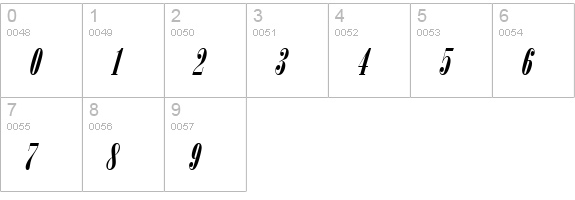
ArsisDReg Italic Font Details
ArsisDReg Italic is a distinctive, italic variant in the ArsisDReg typeface family \xE2\x80\x94 well suited to design and typography projects.
ArsisDReg Italic is a sleek and modern font with a touch of elegance. Its italicized design adds a stylish flair to any project, making it perfect for branding, advertising, and creative endeavors. The font features clean lines and a contemporary feel that will captivate your audience. What's even better is that ArsisDReg Italic is completely free to use! You can download this stunning font at FontsMarket.com without any cost. Whether you're a designer, entrepreneur, or hobbyist, ArsisDReg Italic is a versatile choice that will elevate your work to the next level. Don't miss out on this opportunity to enhance your projects with a premium font that won't break the bank. Download ArsisDReg Italic today and let your creativity shine!